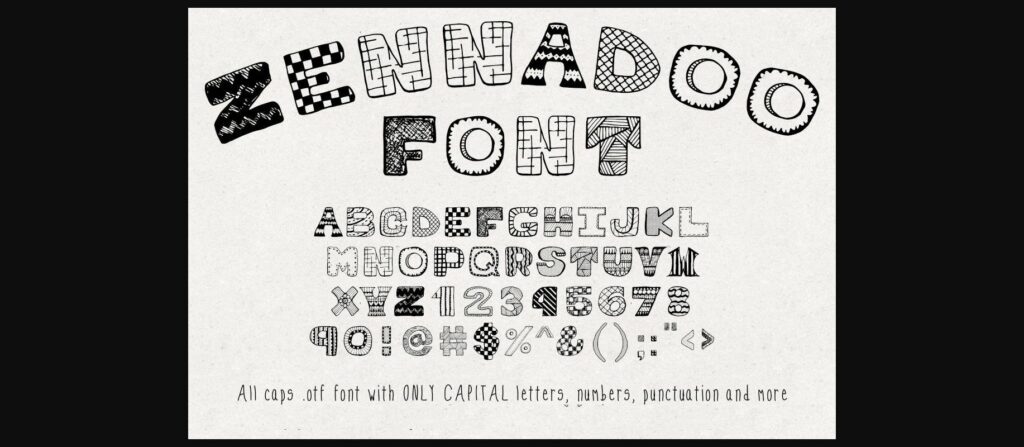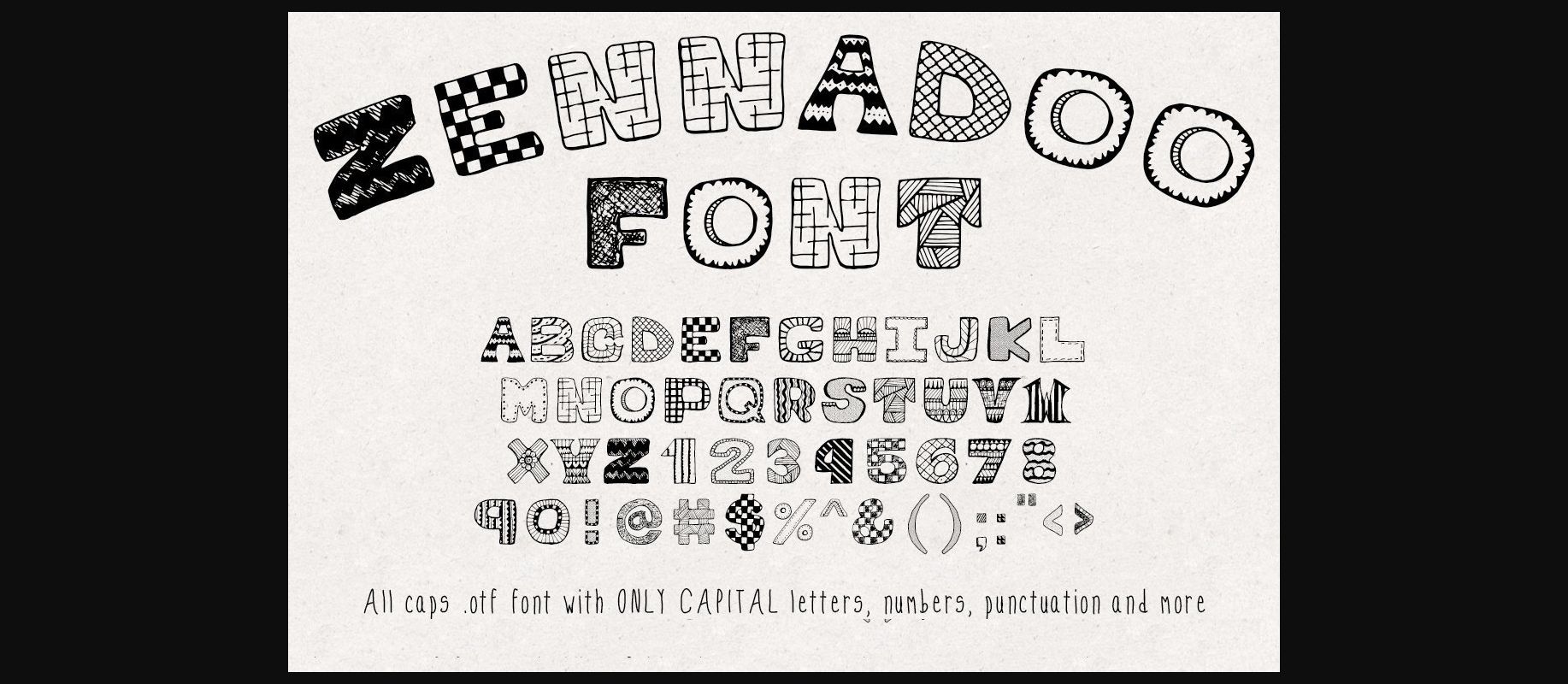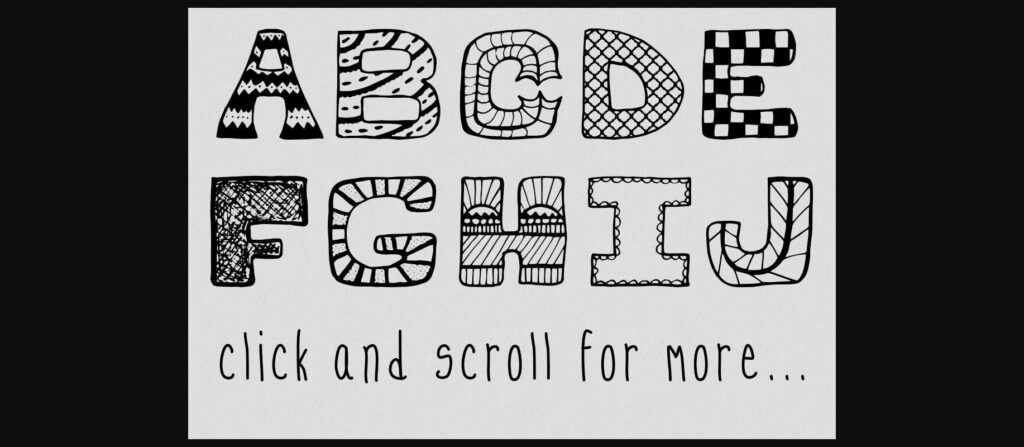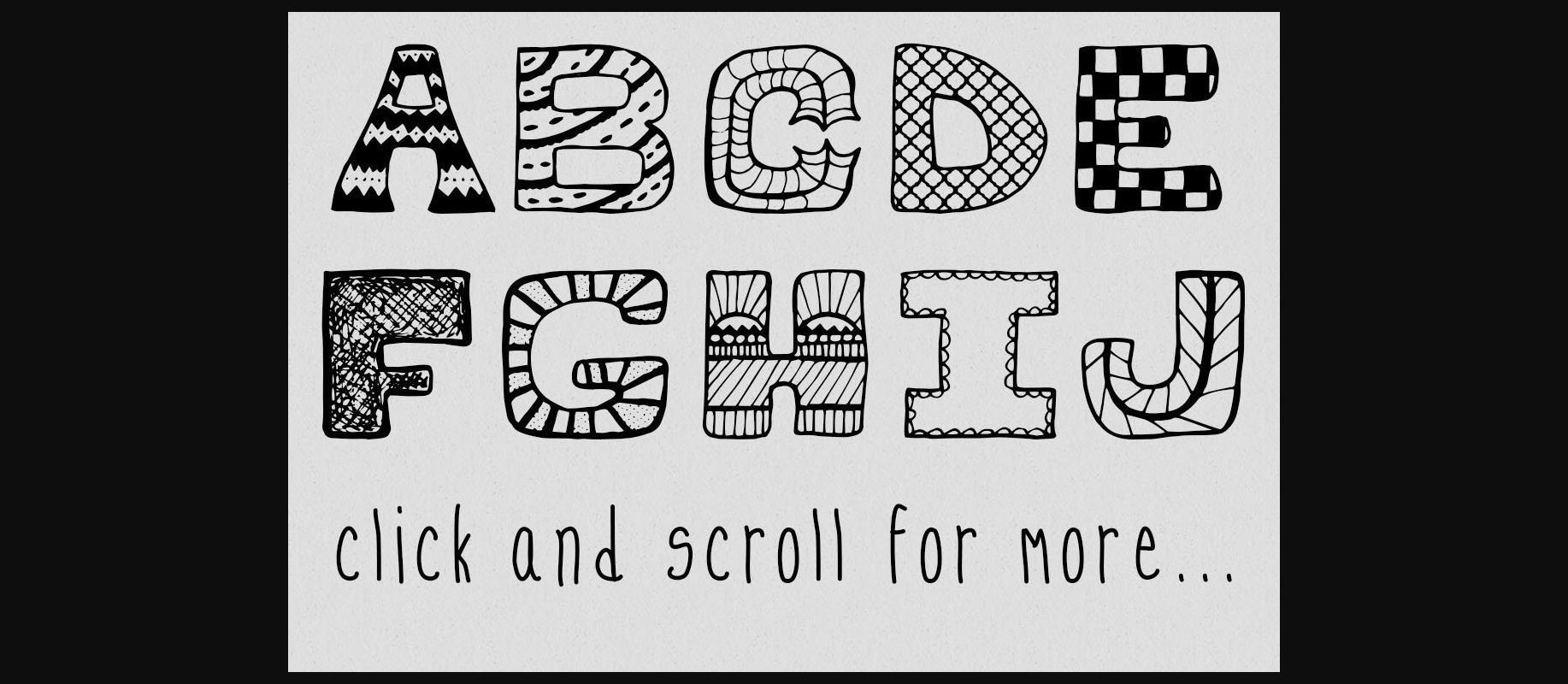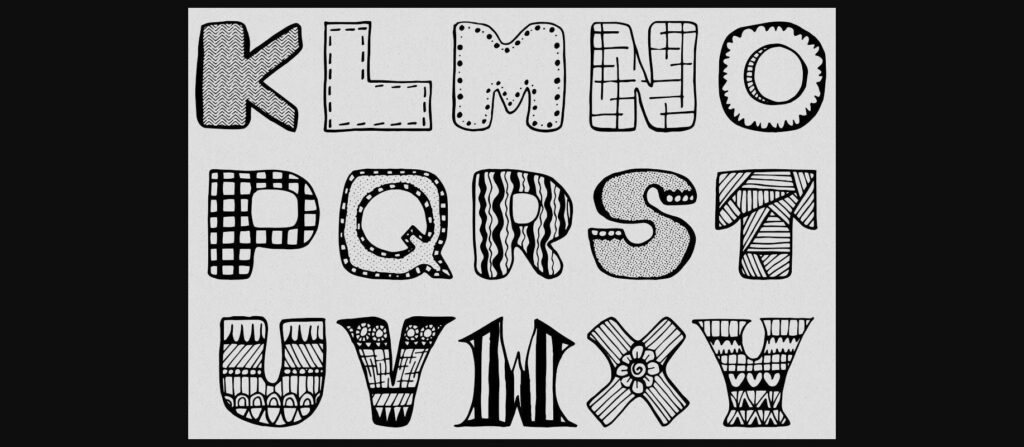
Zennadoo Font
About Zennadoo Font
Zennadoo is a cool and unique all-caps handwritten decorative font. Fall in love with its incredibly distinct and timeless style and use it to create spectacular designs!